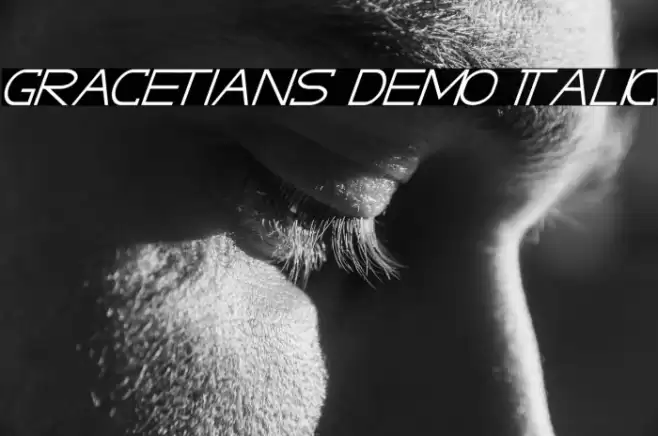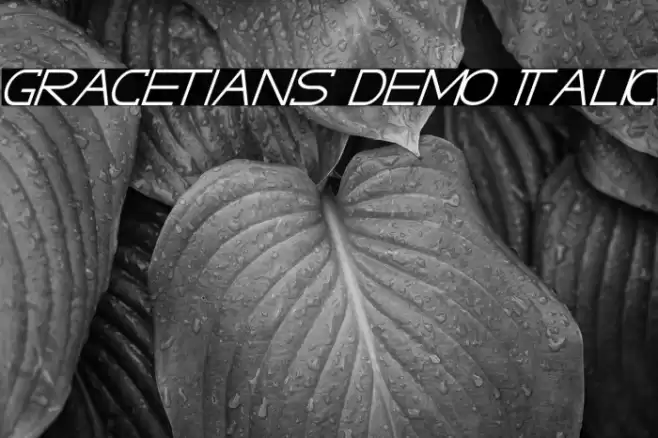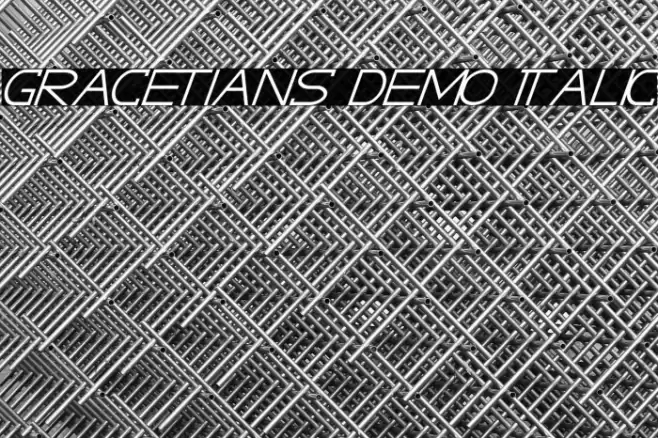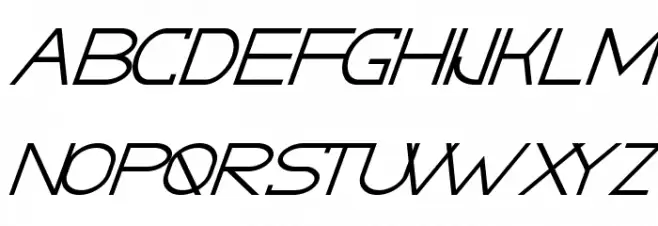
GRACETIANS DEMO Italic Font
GRACETIANS DEMO Italic Description
This font features a sleek, italicized style with a modern and dynamic appearance. The characters are slightly slanted, giving a sense of motion and elegance. The strokes are consistent in thickness, providing a uniform look across all letters. The design is clean and minimalistic, making it suitable for contemporary projects. The uppercase letters are distinct and well-defined, while the lowercase letters maintain a cohesive flow. The overall aesthetic is sophisticated yet approachable, making it versatile for various design applications.
A sleek, italicized font with a modern and dynamic style from Uncategorized fonts.
- Proposed Projects: Ideal for branding, advertising, and editorial design where a modern and elegant touch is desired.
- Use Case: Headlines, Logos, Branding